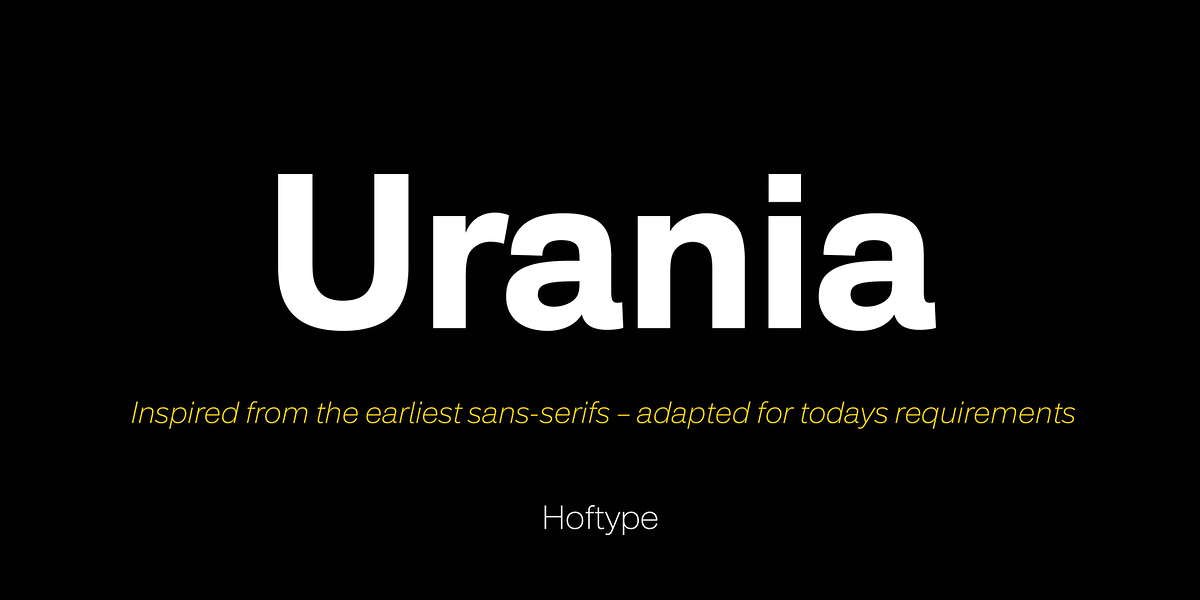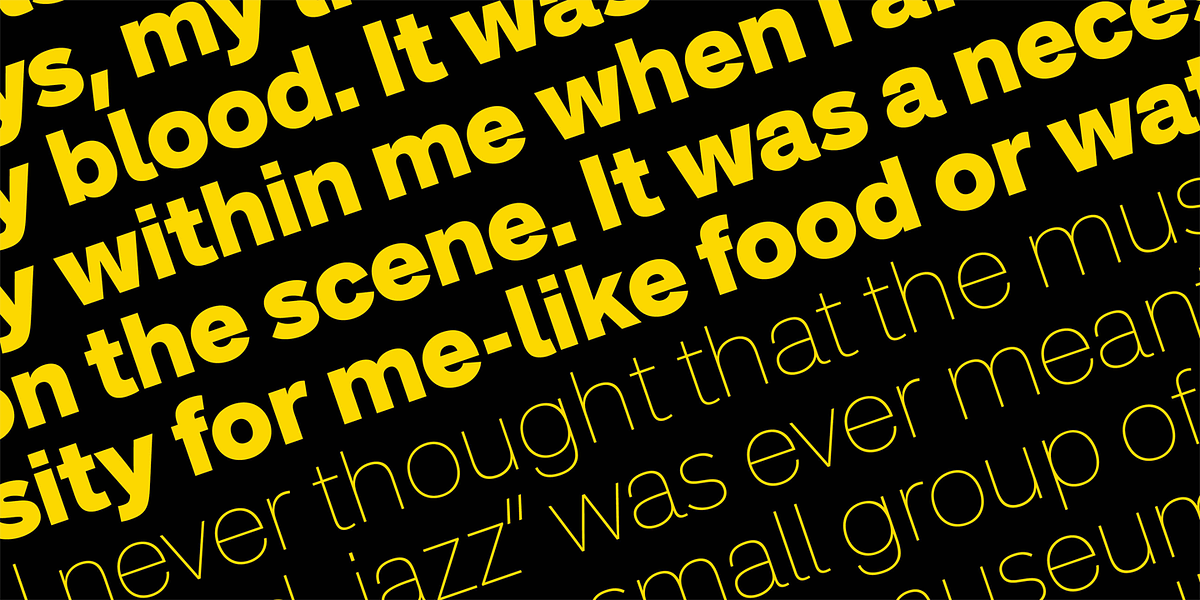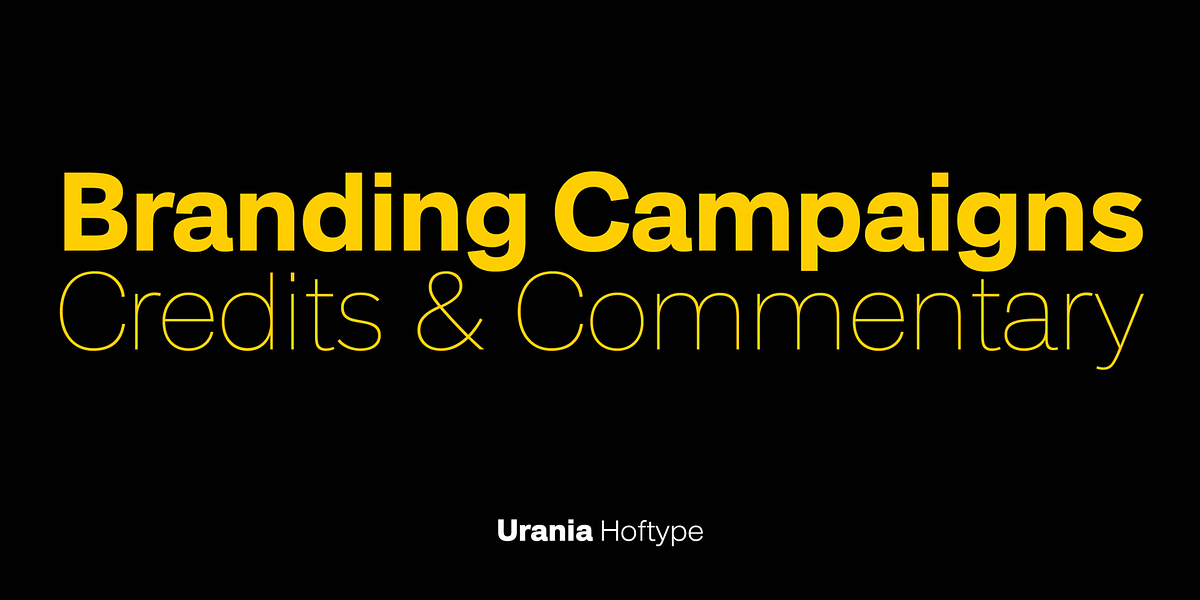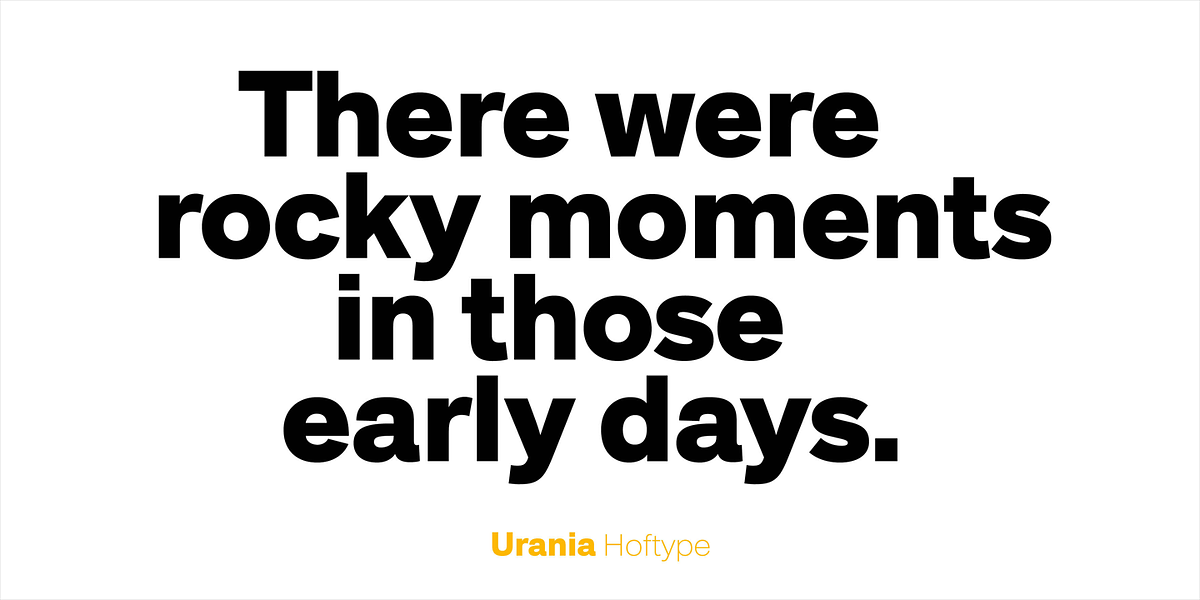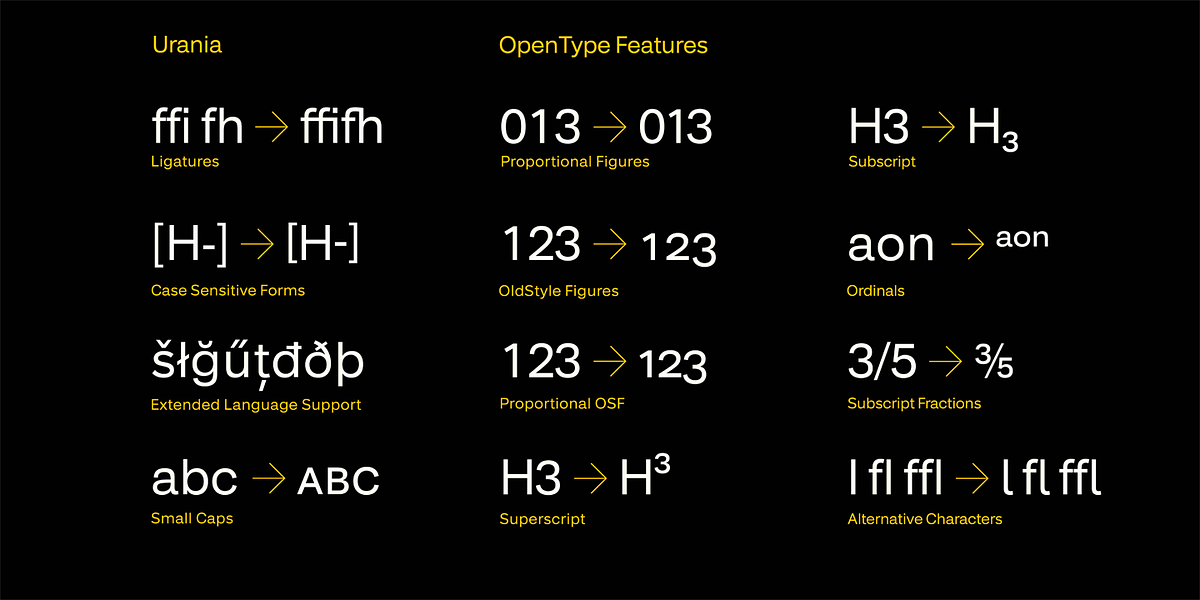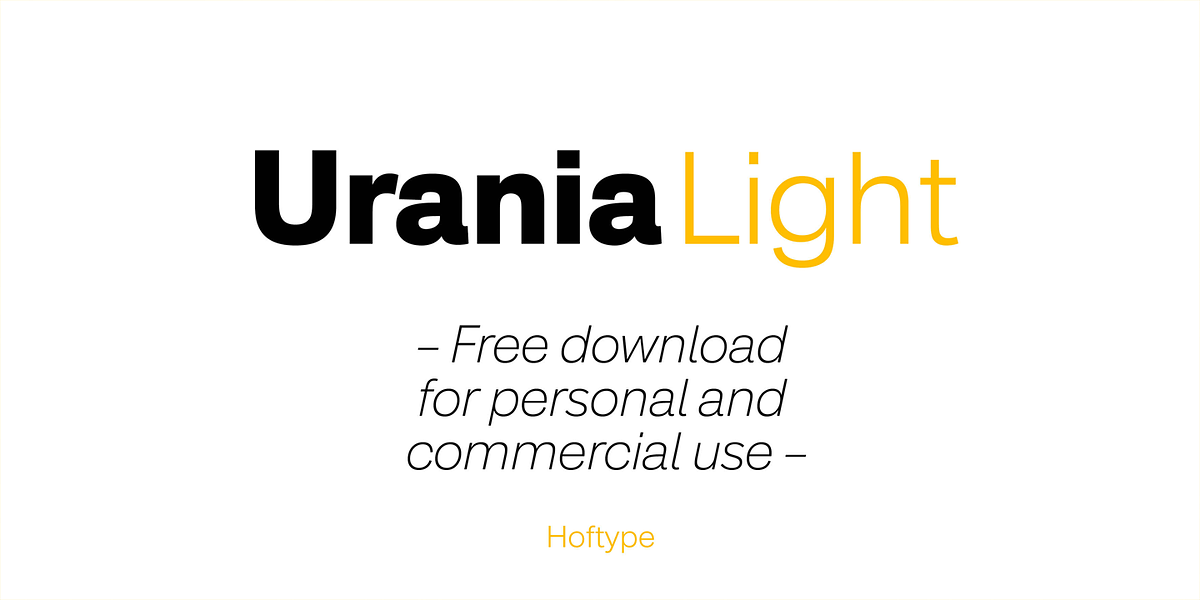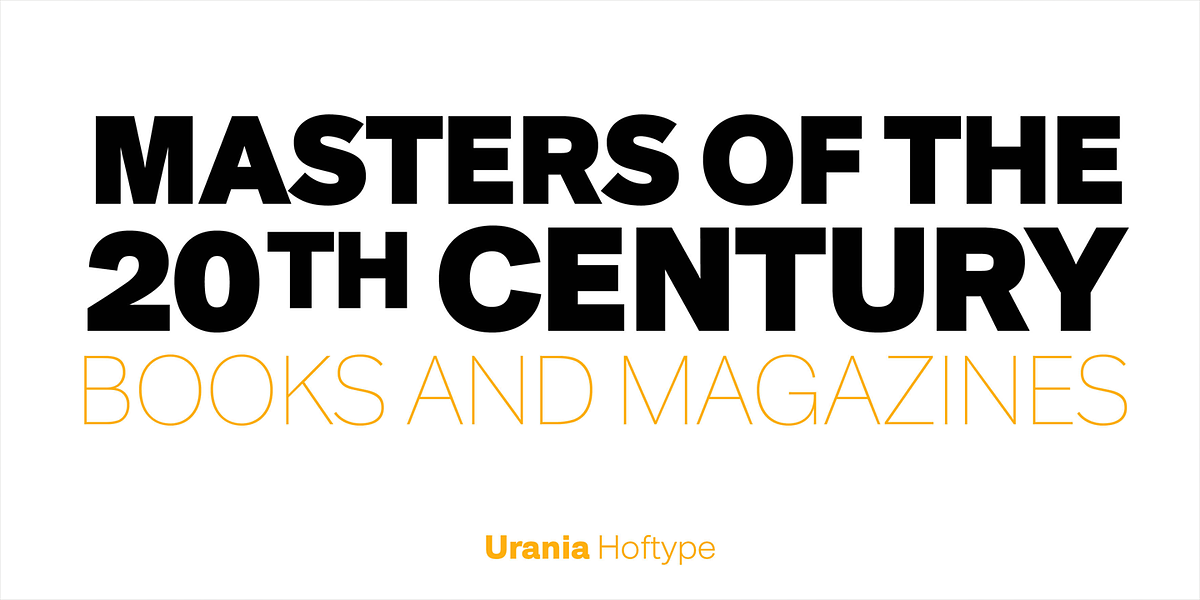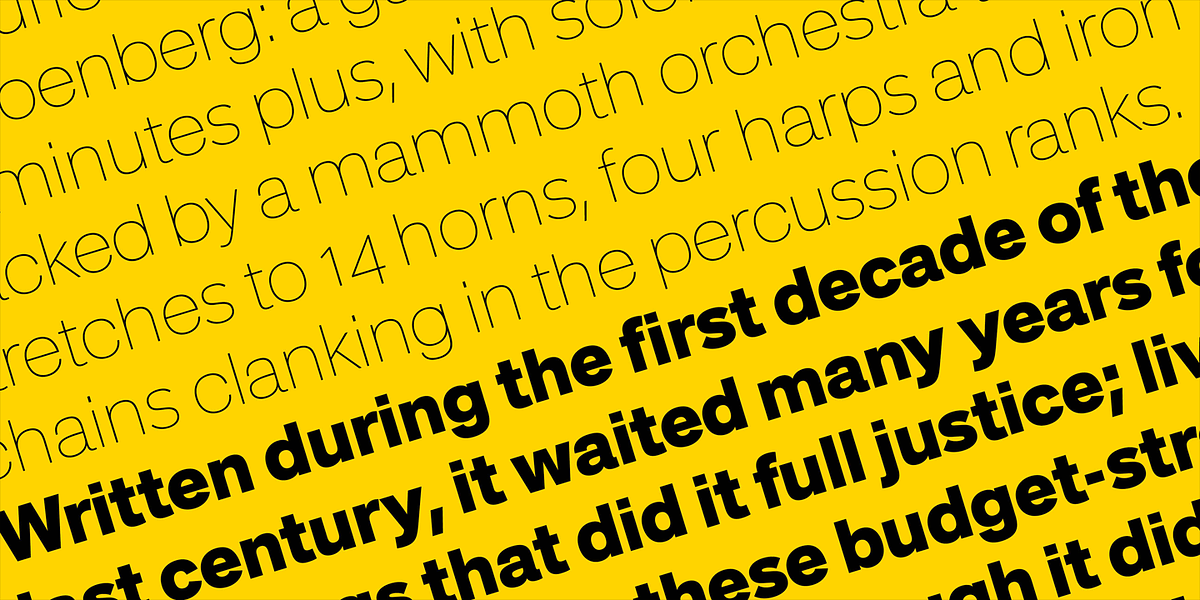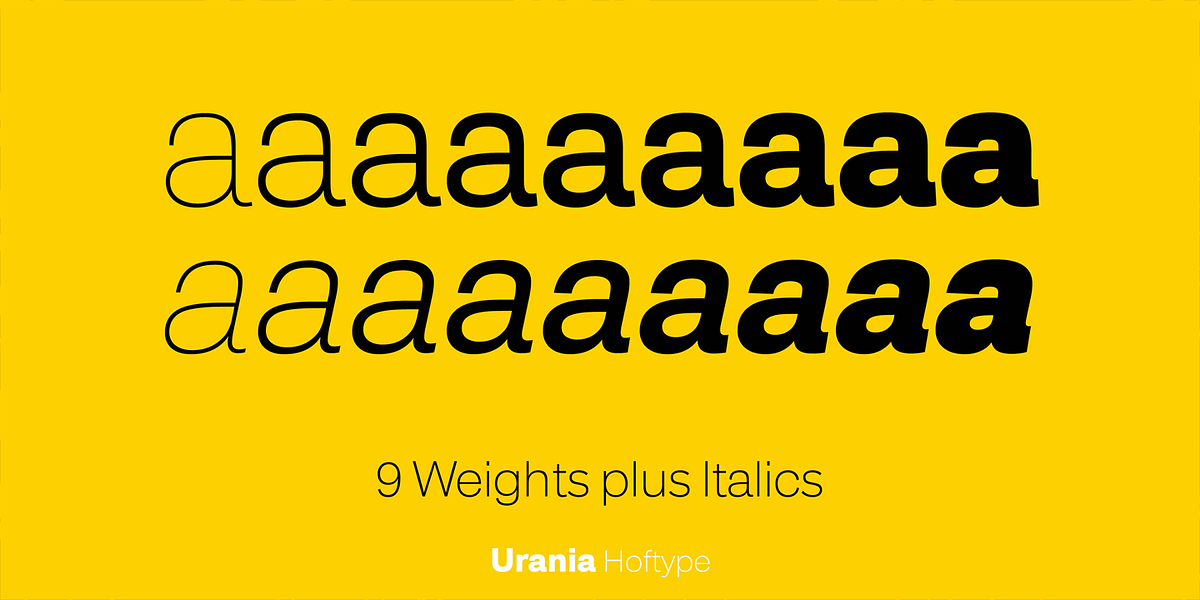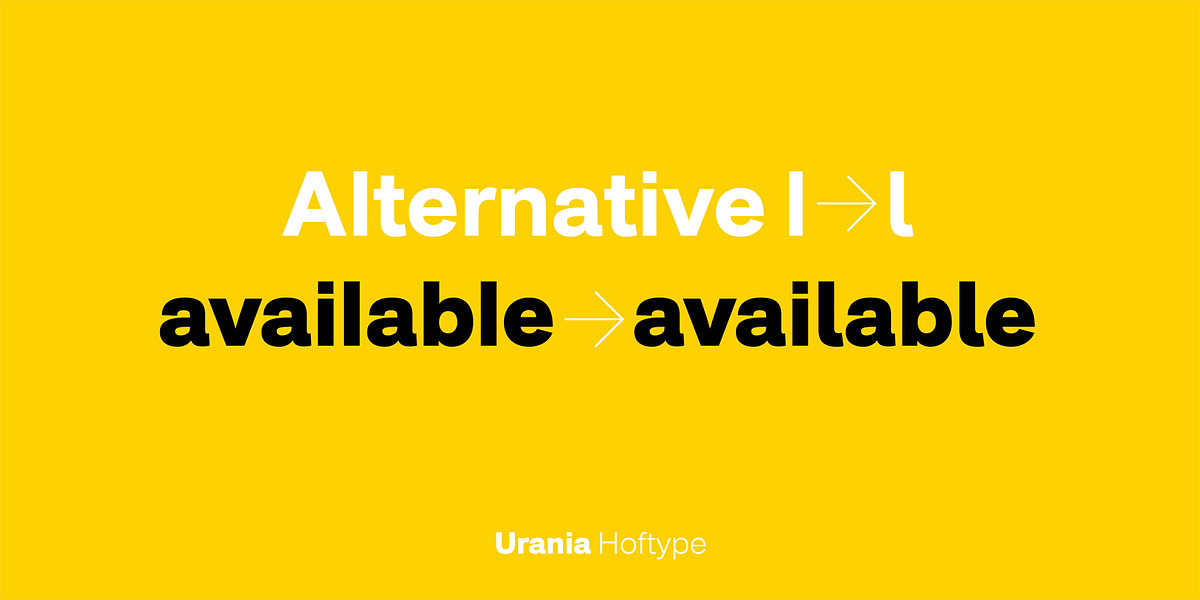
Urania
Urania is a modern sans serif typeface inspired by the work of Ferdinand Theinhardt. It offers a contemporary interpretation of classic grotesque features and comes in 18 styles with extensive language support and a variety of OpenType features including ligatures, different figure sets, currency symbols, and more.